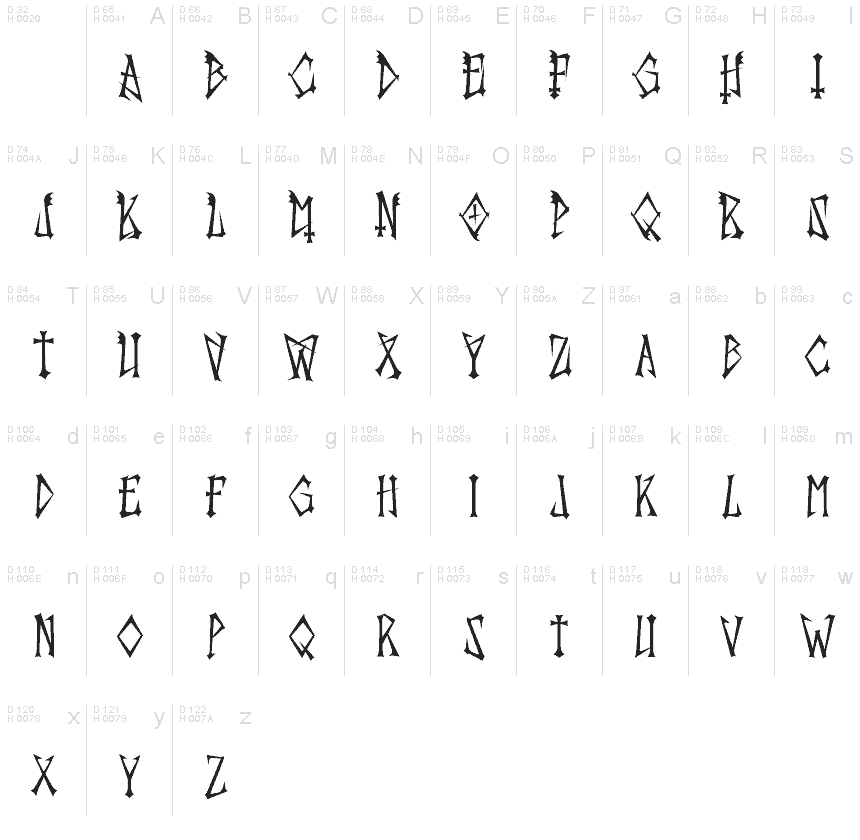
CS Another Regular Demo
CS Another font by Craft Supply Co. is a gothic-inspired display with condensed characters built in sharp angles and decorative elements. A grim mood dominates the design which is inspired by medieval scripts but infused with contemporary, technological elements within its edgy structure. Use this free display typeface to experiment and push your next project to a brand-new level.
This mystical font is perfect for fantasy-themed designs, branding for alternative music such as gothic metal bands’ posters or album covers, escape room ads, shop signs, products packaging for ghost stories books/movies – pens etc., spell book covers, dark magic show tickets or flyers, tattoo shops and other similar possible places.